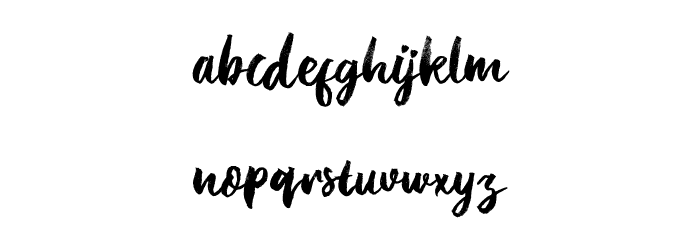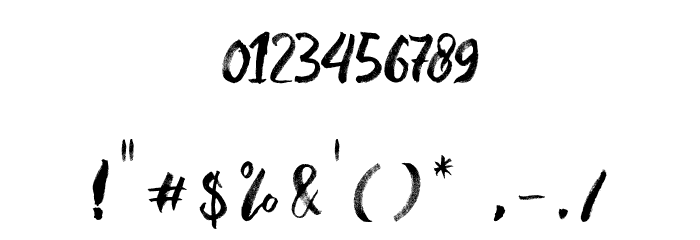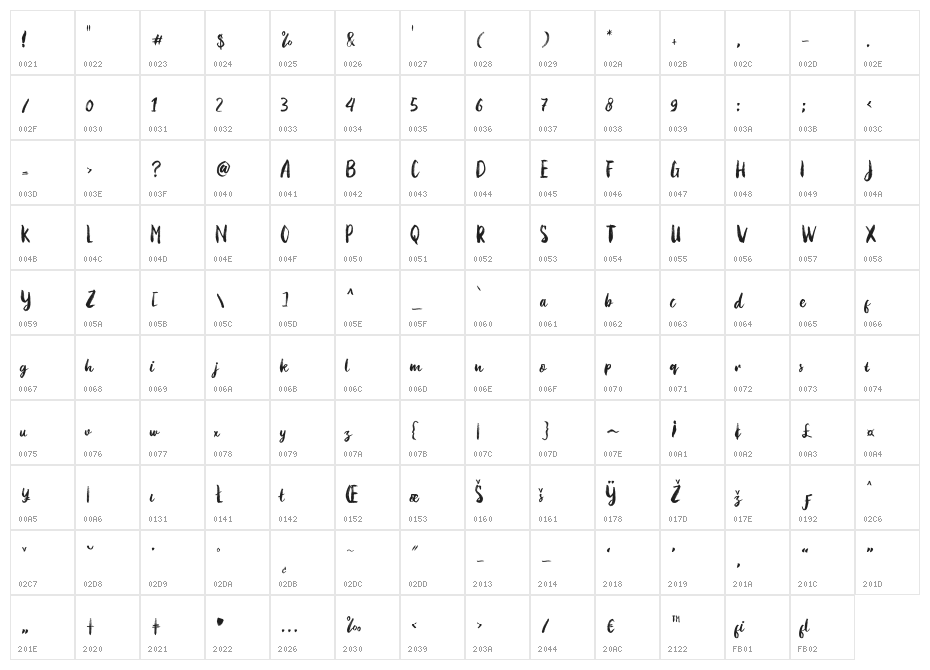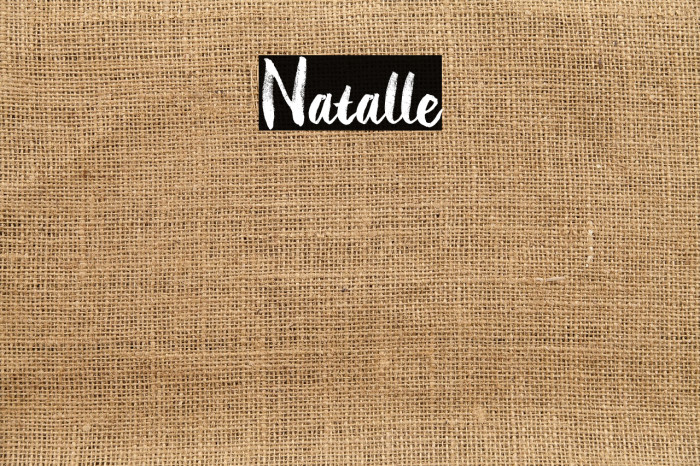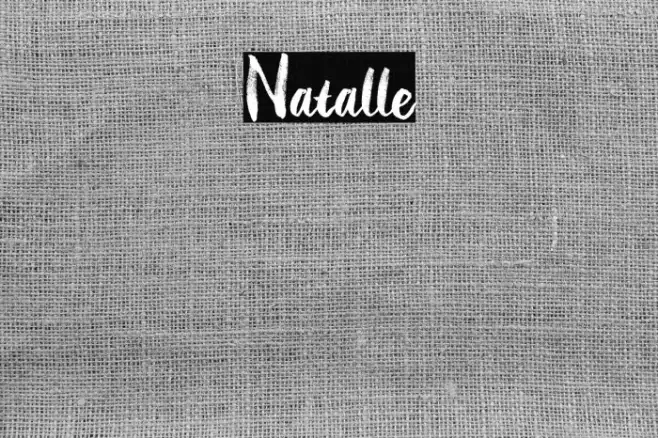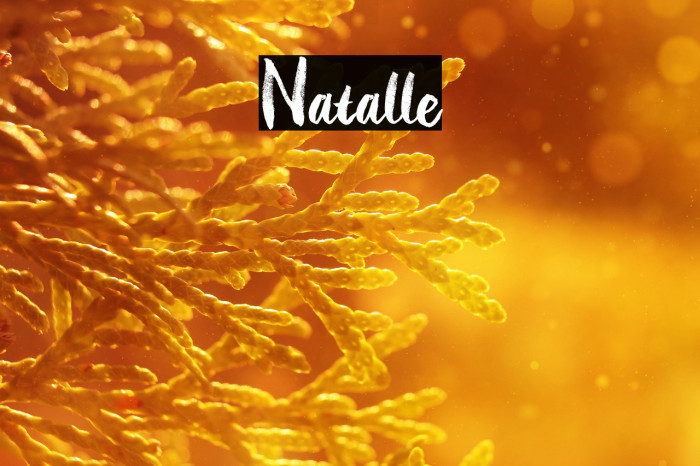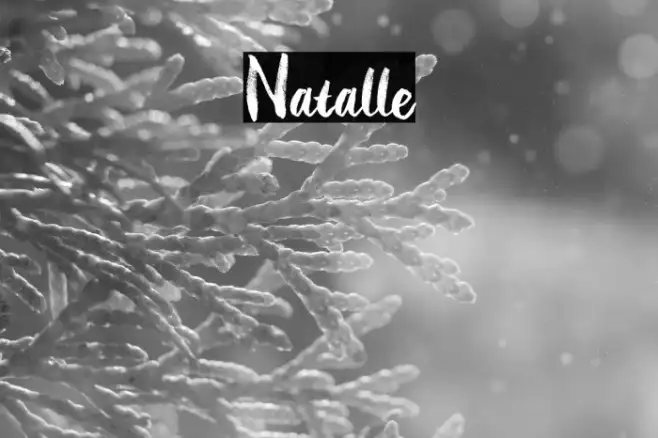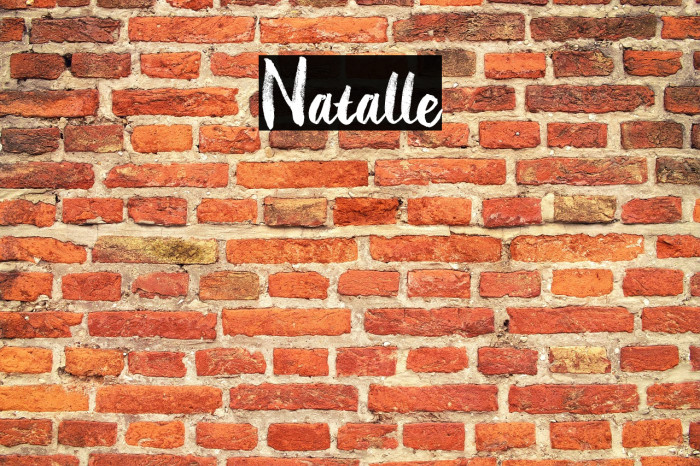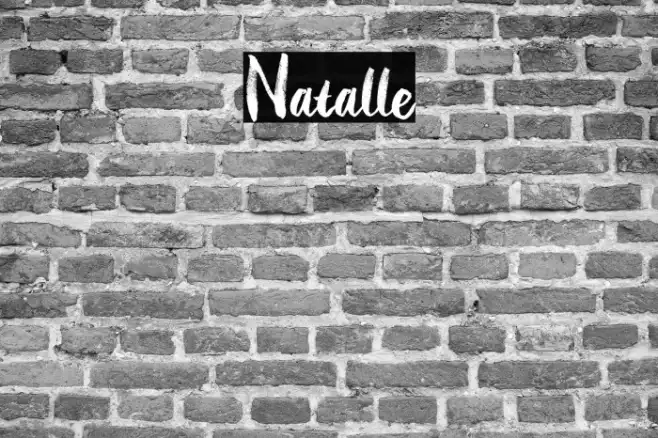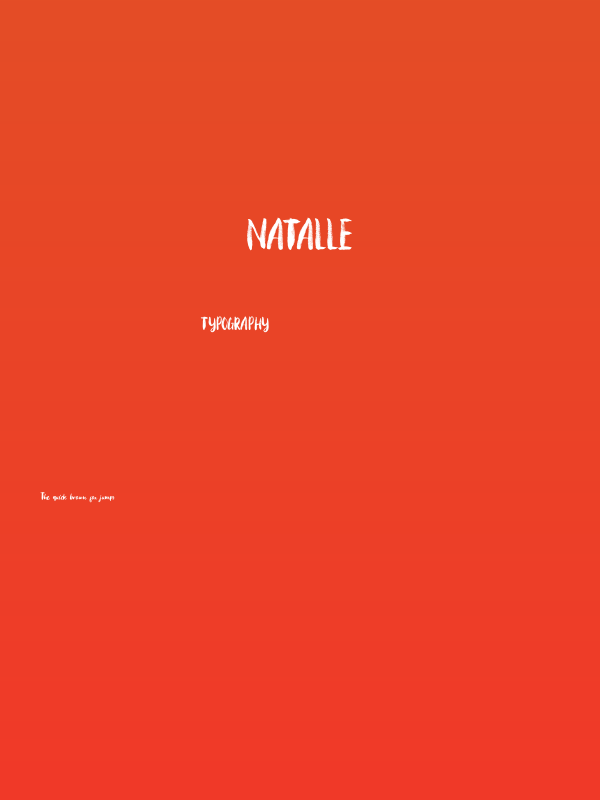
Natalle Font
This font exudes a bold and expressive style, characterized by its brush-like strokes that give it a hand-painted appearance. The uppercase letters are robust and dynamic, with a slight slant that adds to their energetic feel. The lowercase letters maintain a consistent flow, enhancing the font's overall fluidity and natural look. Numbers and special characters are crafted with the same artistic flair, ensuring a cohesive design throughout. The texture of the strokes suggests a sense of movement and creativity, making it ideal for projects that require a personal touch.
A bold, brush-style font with expressive, hand-painted strokes.
- Proposed Projects: Ideal for artistic projects, branding, posters, and invitations where a personal, creative touch is desired.